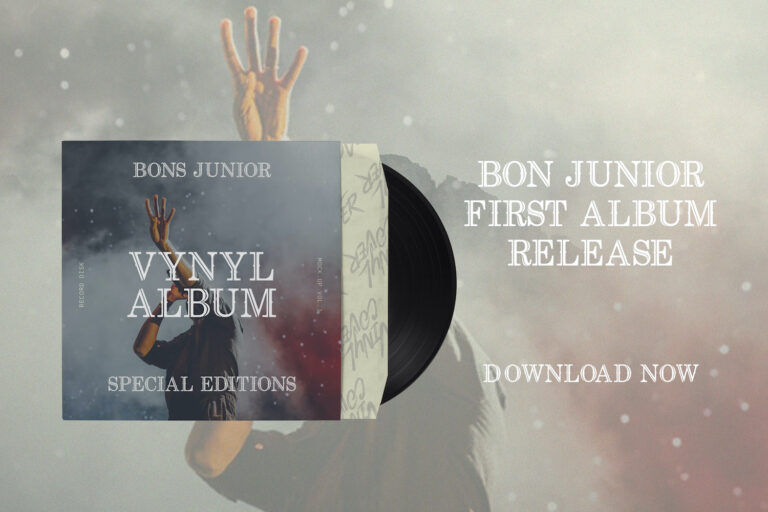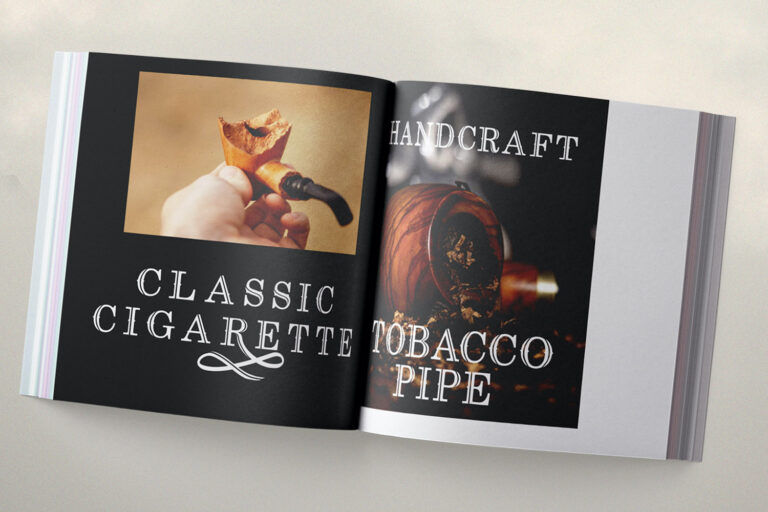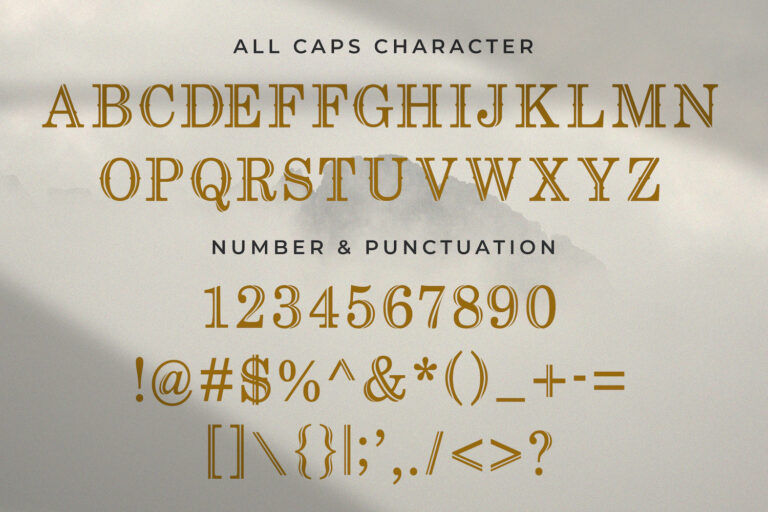
Free Revij Anovik Decorative Serif Font is a bold reinterpretation of classic serif elegance infused with a unique ornamental twist. Each letterform is thoughtfully crafted with high contrast strokes, structured geometry, and distinctive decorative swashes that give the font a regal yet artistic personality. The signature flourishes found in many of the capital letters add a flair of sophistication, perfect for statement headlines or refined branding.
Revij Anovik works exceptionally well in editorial layouts, fashion magazine titles, luxury product packaging, book covers, boutique logos, and high-end event invitations. Its dramatic presence and vintage-meets-modern aesthetic also make it ideal for poster designs, gallery catalogs, or heritage-inspired branding. The included alternate characters and multilingual support expand its creative versatility, allowing you to customize tone while maintaining visual consistency.
Whether you're crafting a bold brand identity or designing an expressive visual concept, Revij Anovik Decorative Serif Font brings a balance of charm, precision, and ornamental beauty that elevates any layout with lasting impact.